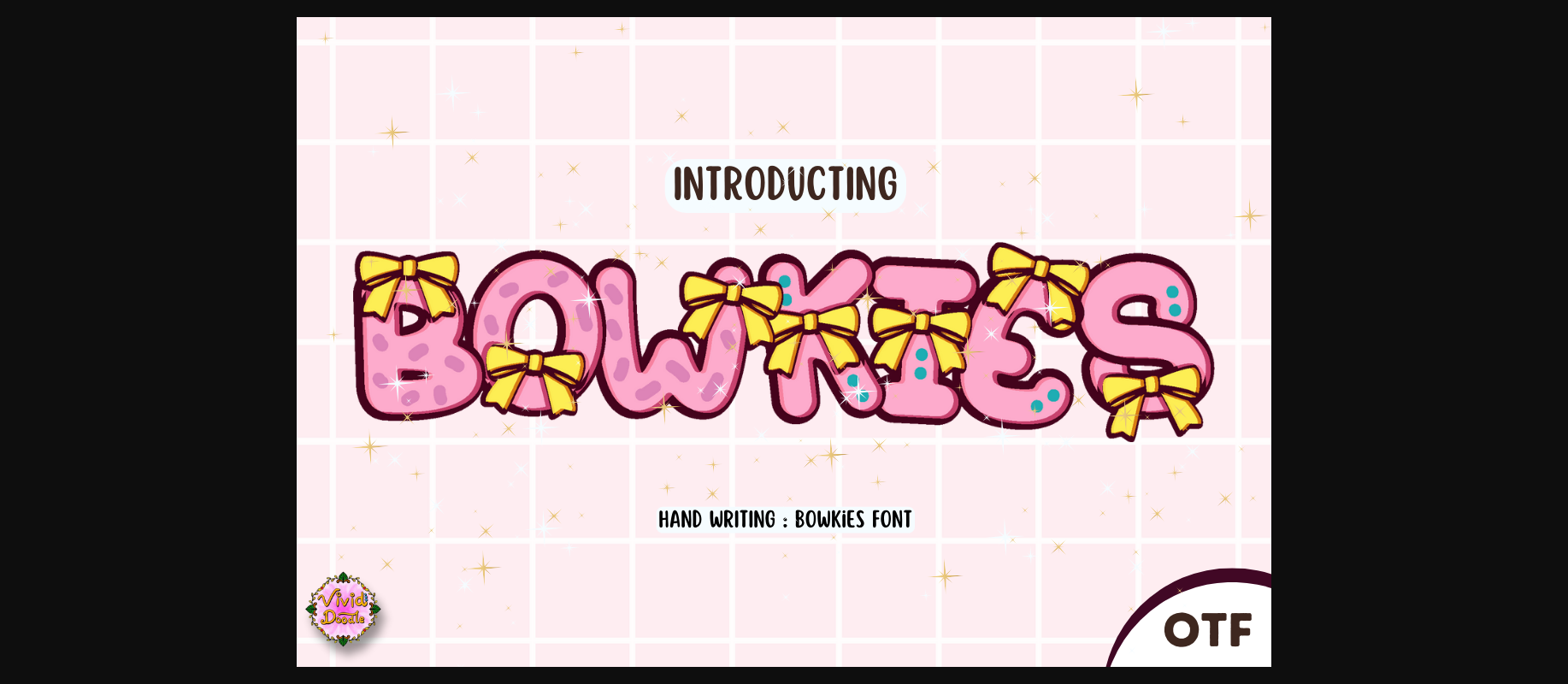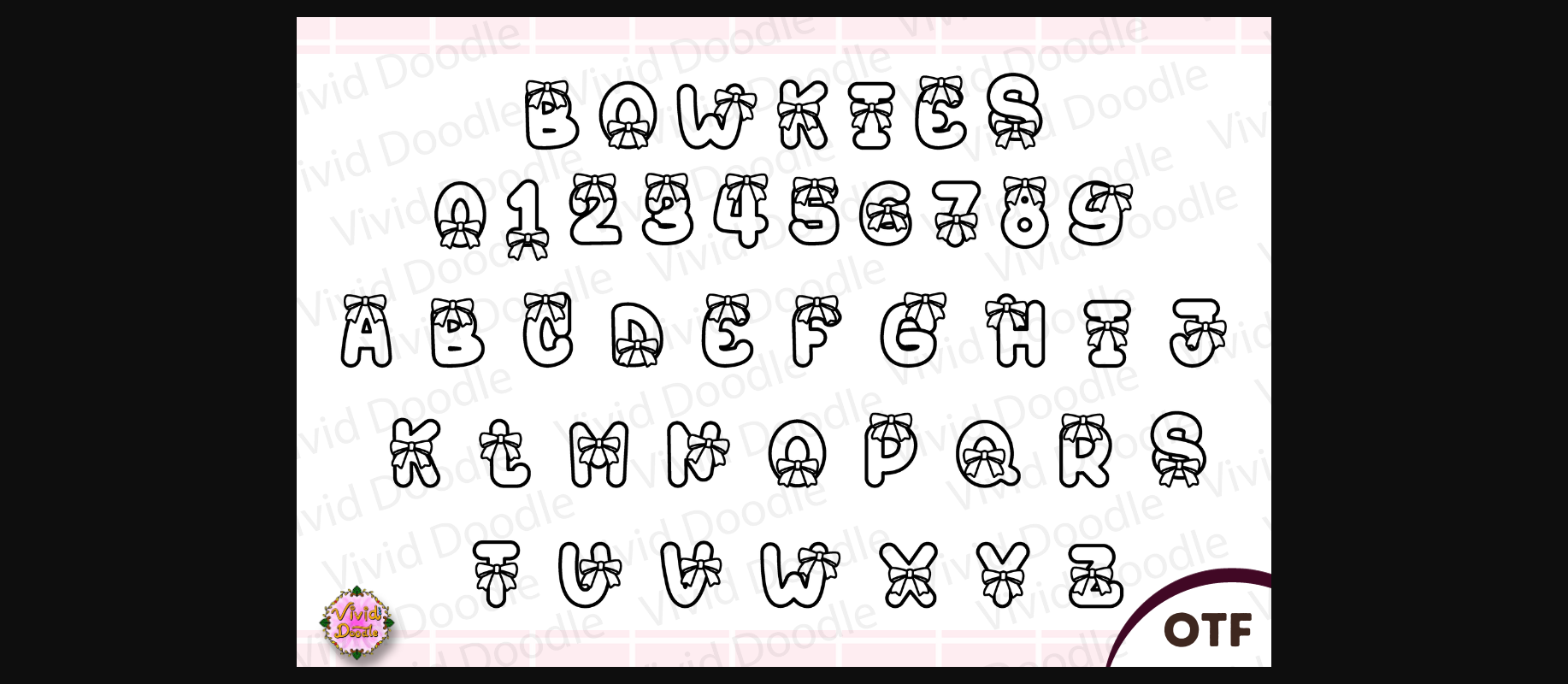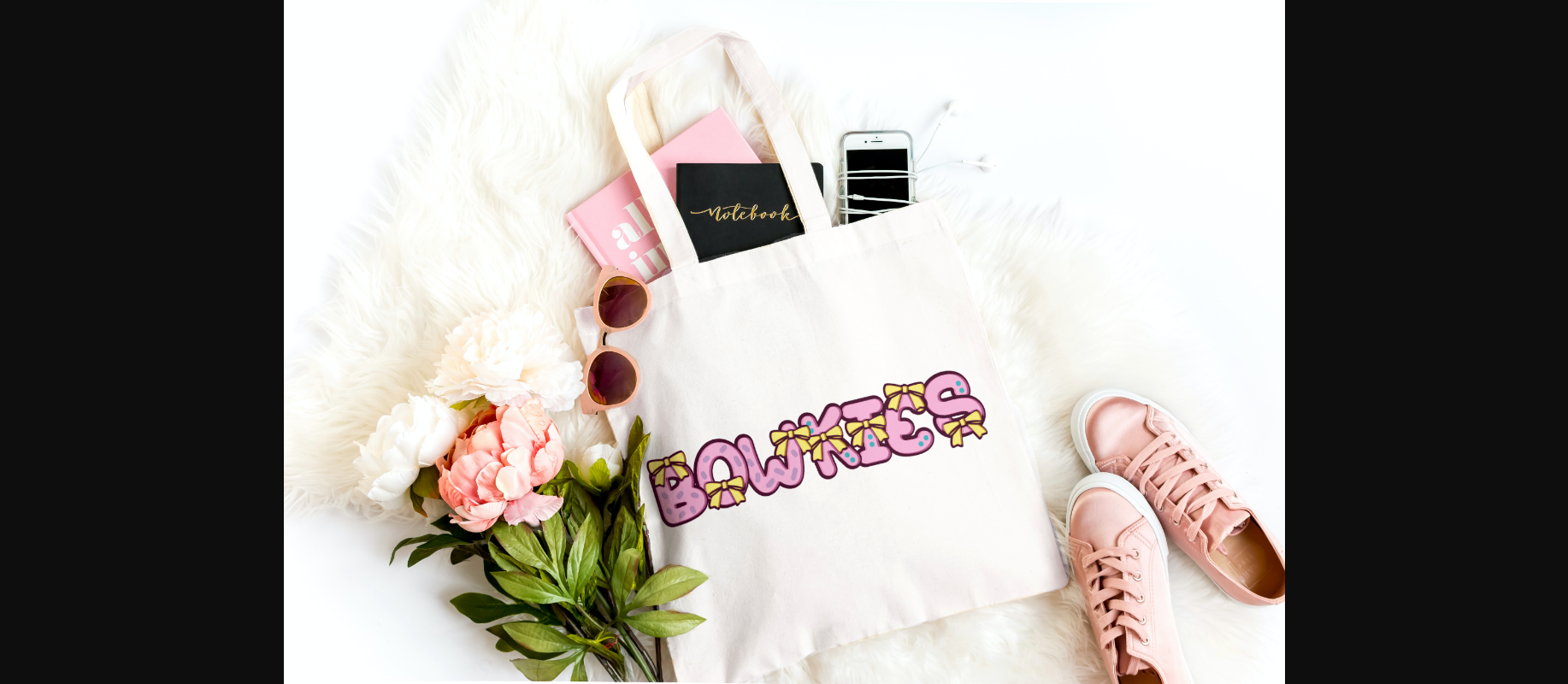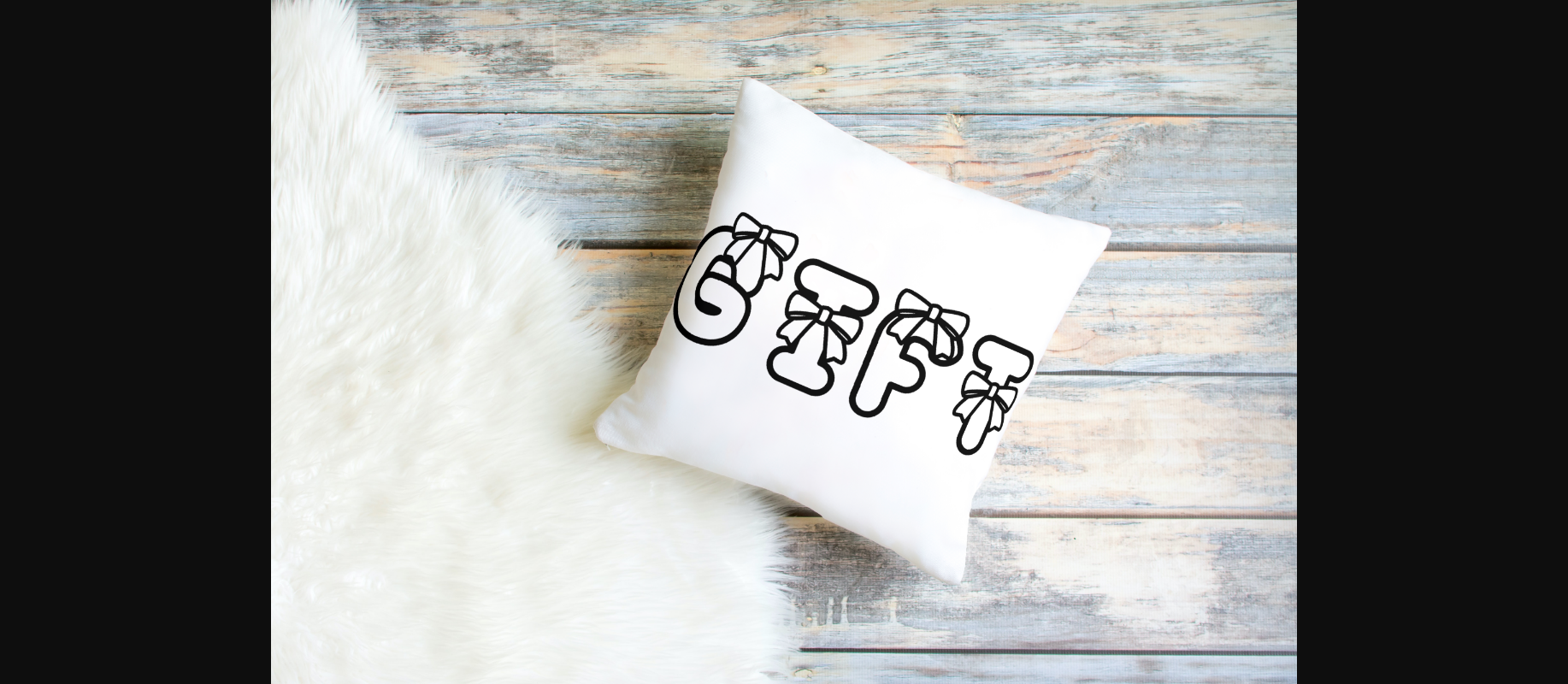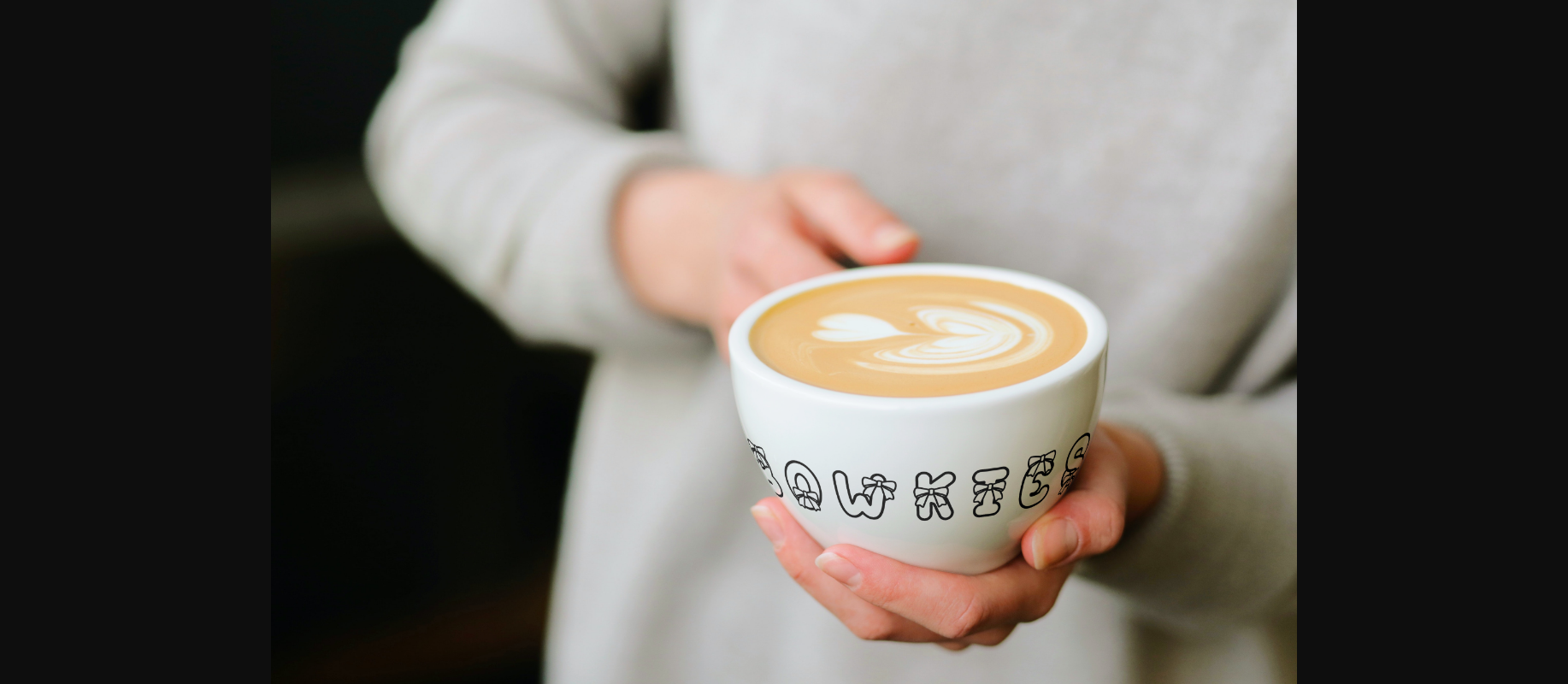
Bowkies Font
About Bowkies Font
Indulge in the Valentine’s Day spirit with our captivating ribbon font for gifts! Immerse yourself in romantic vibes while navigating through this freshly designed typeface, carefully crafted to infuse your creations with the delightful essence of love. Elevate your projects with this versatile font’s enchanting and exclusive charm, ideal for capturing the magic of love not just during the Valentine’s season but throughout the entire year.